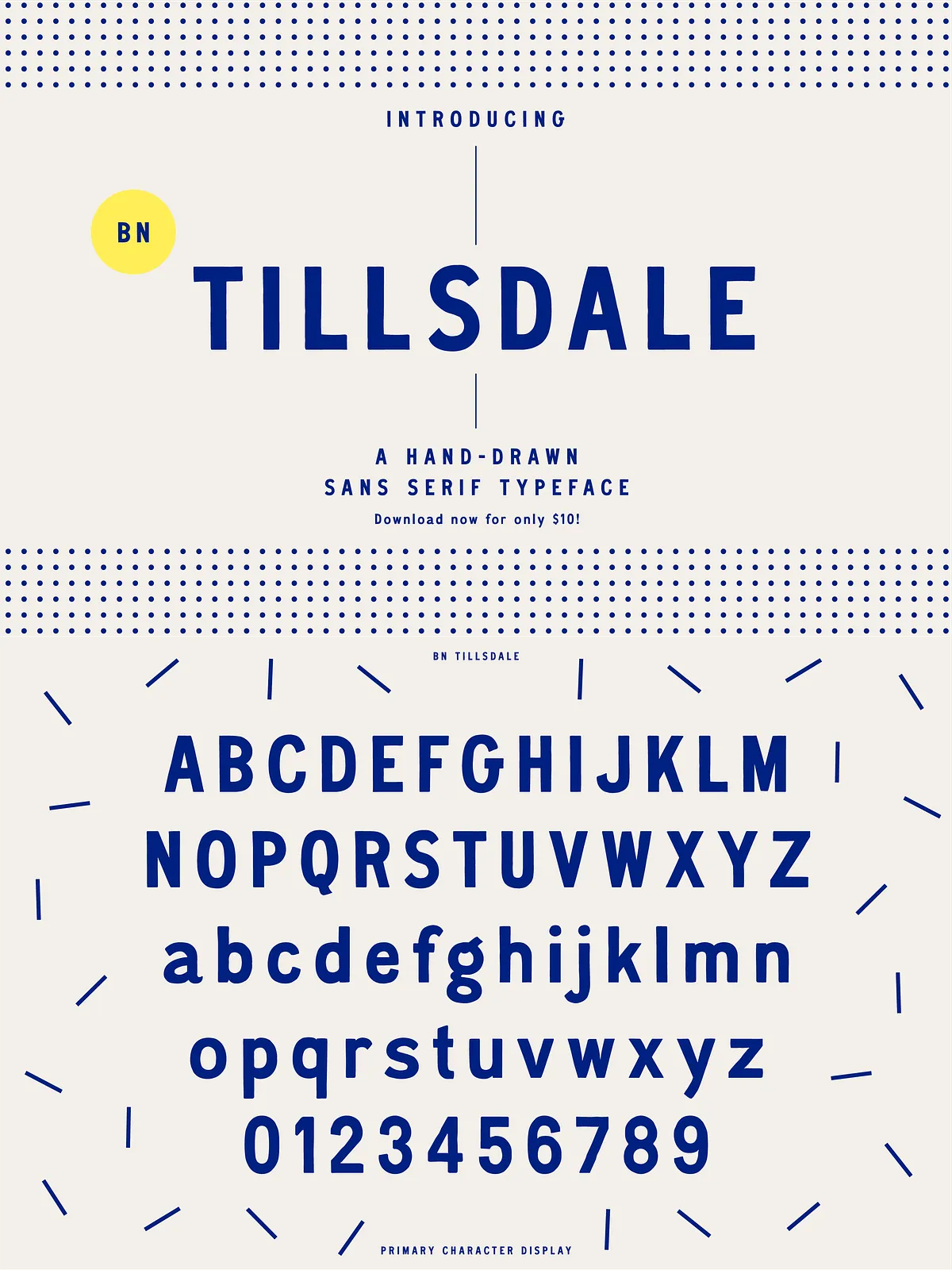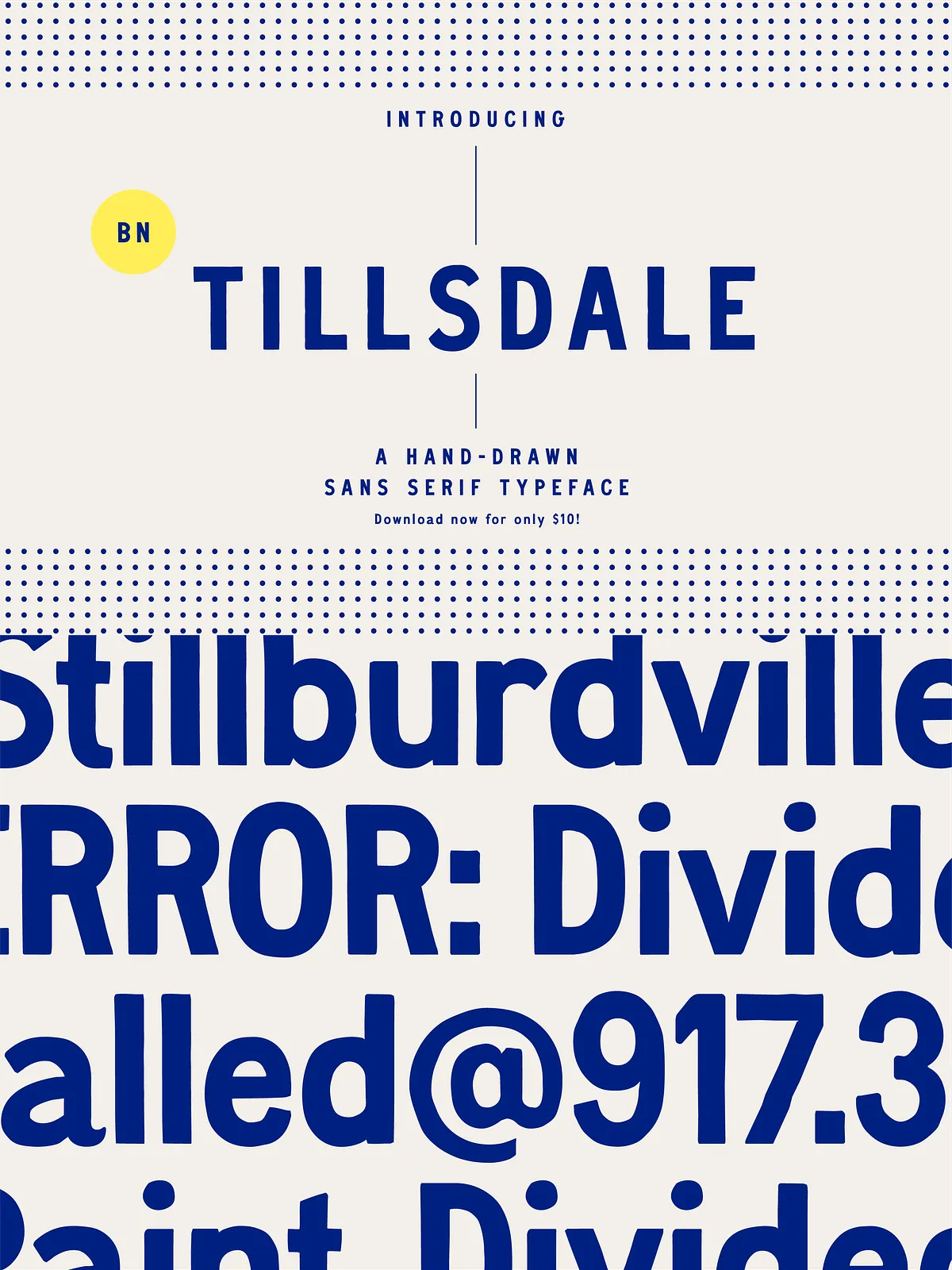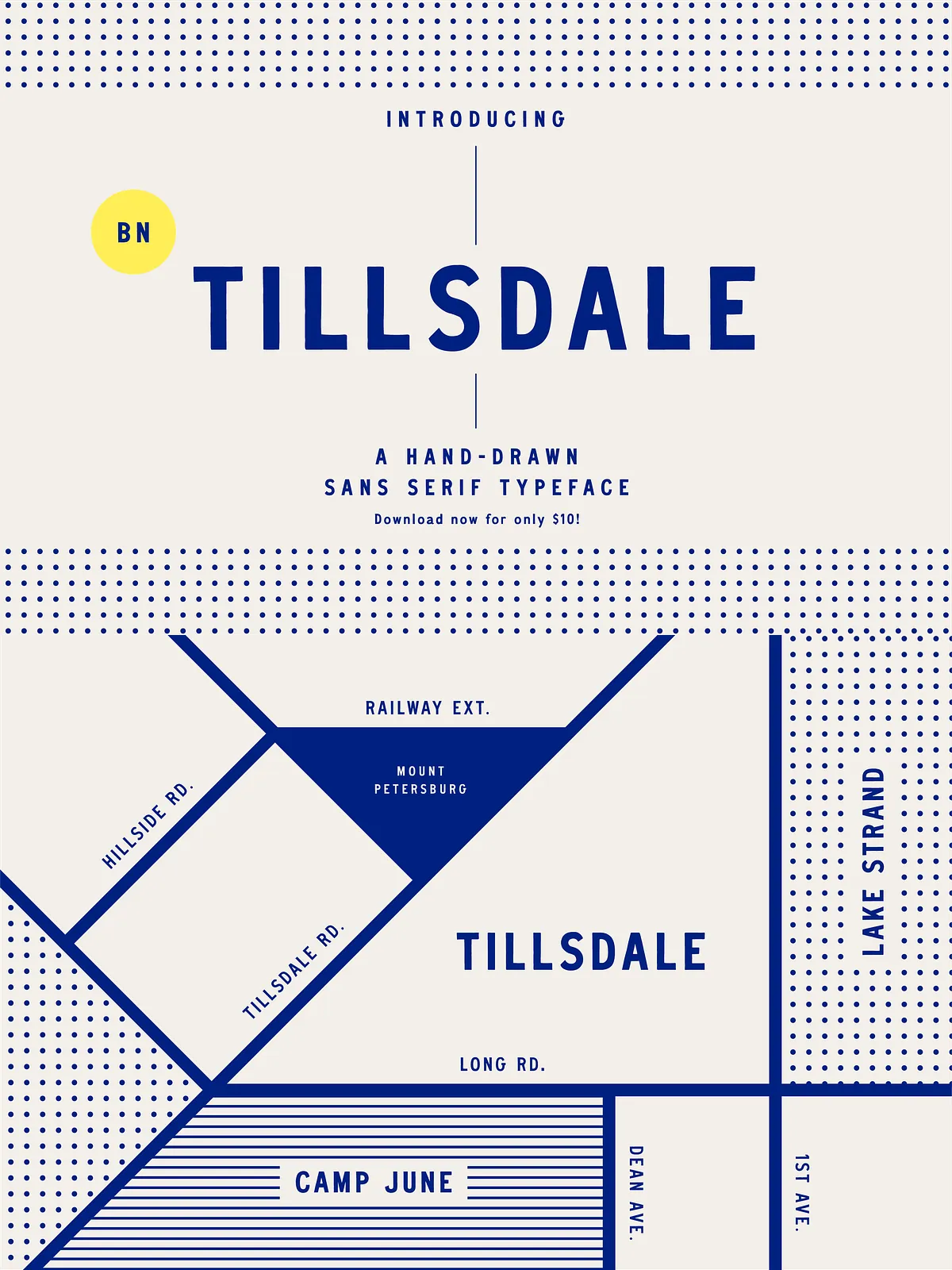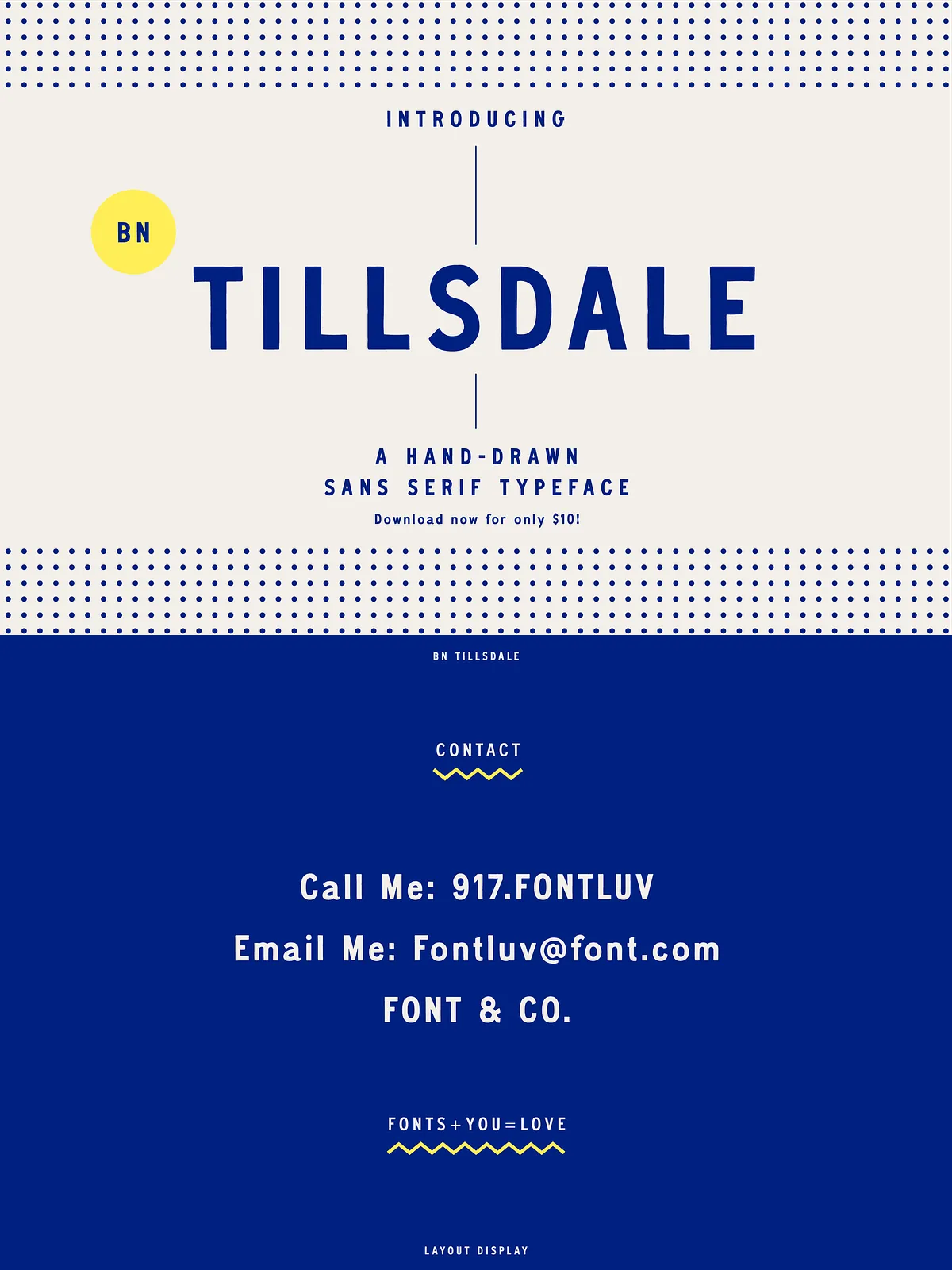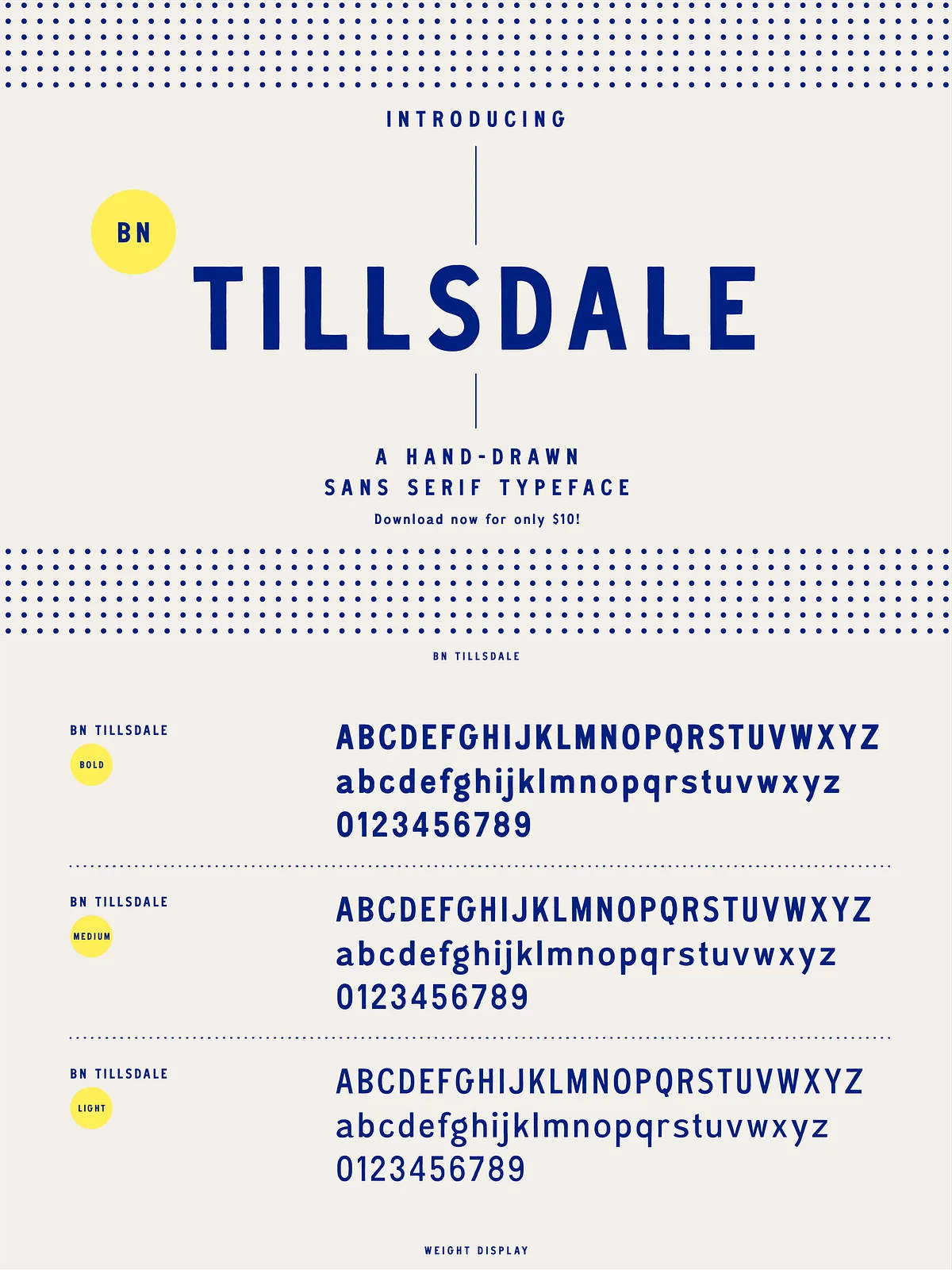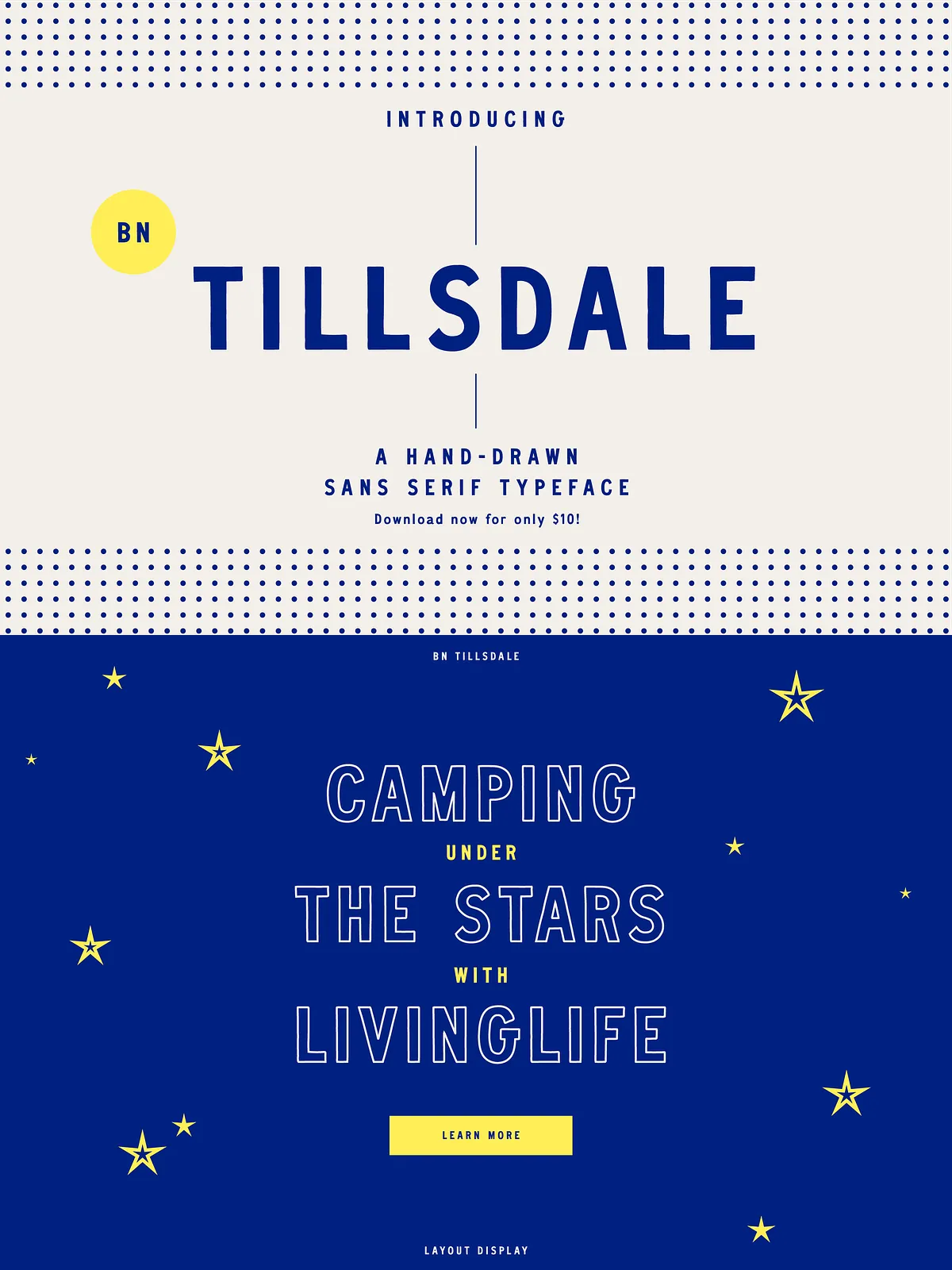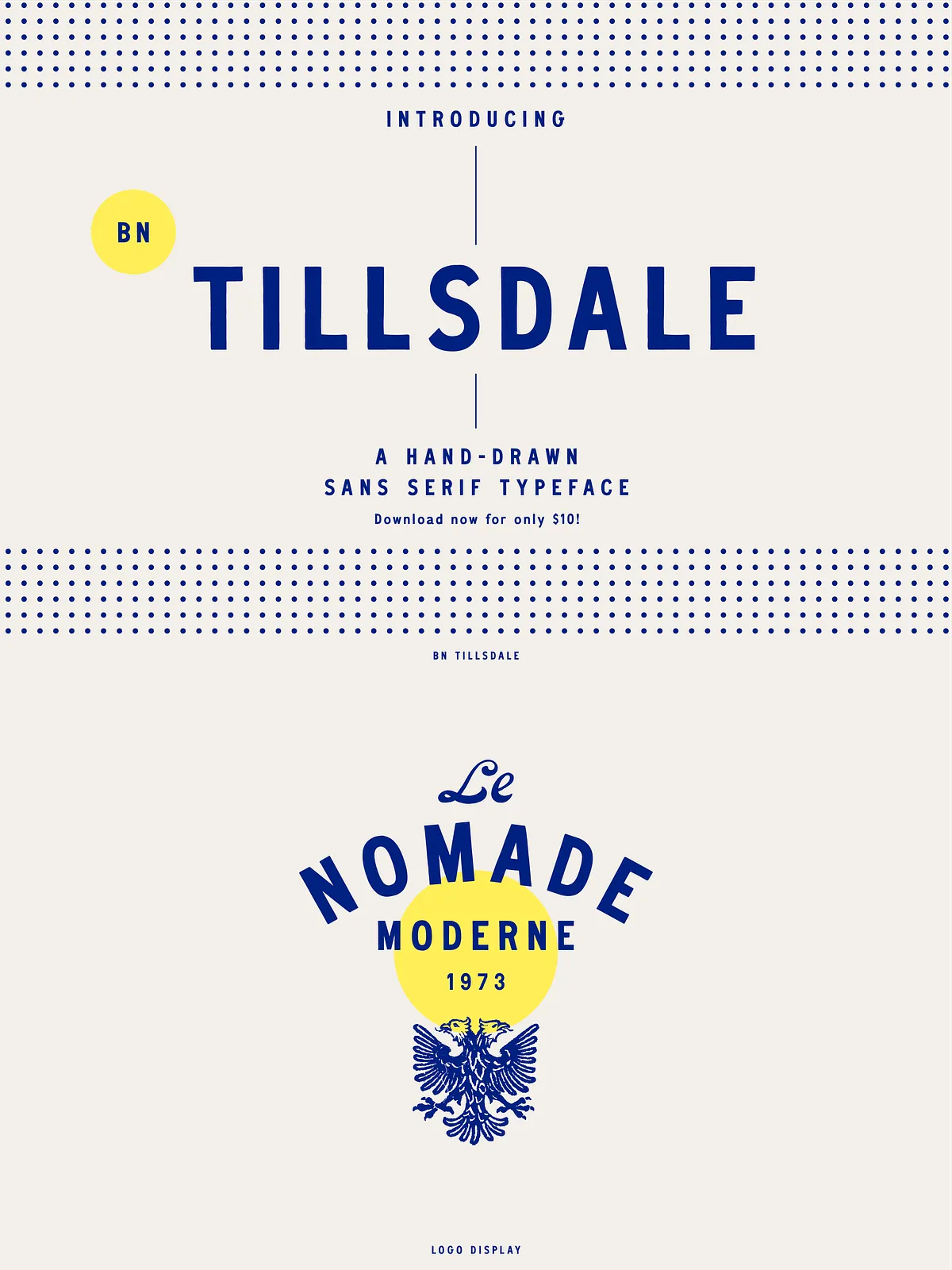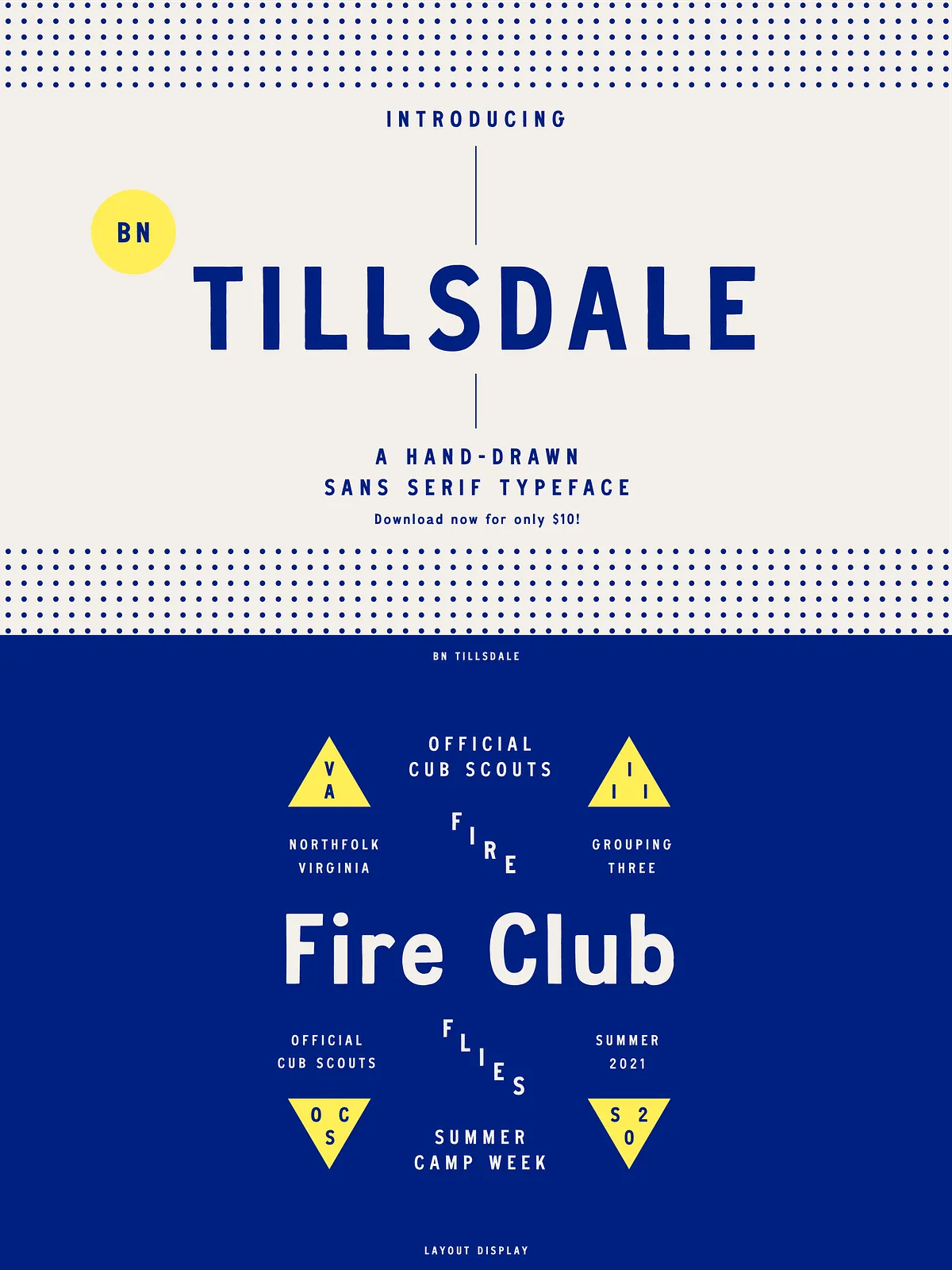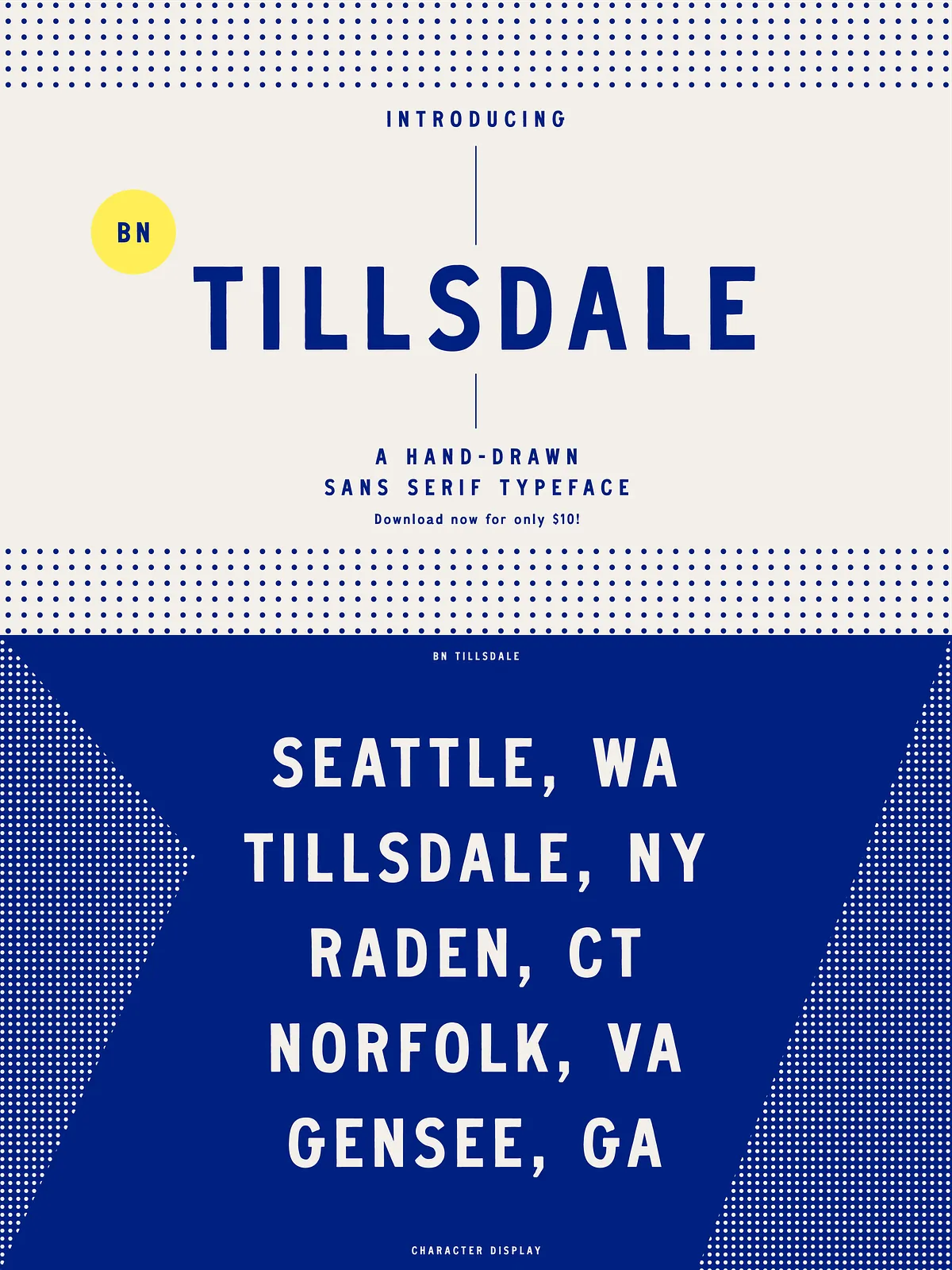
BN Tillsdale: Hand-drawn Font Family
Introducing BN Tillsdale!
A hand-drawn sans serif typeface that comes in 3 weights! Using a well balanced semi-condensed form and attention to detail, BN Tillsdale is perfect for most all aspects of graphic design, from creating a unique display layout, a quirky logo design and even long-form content.